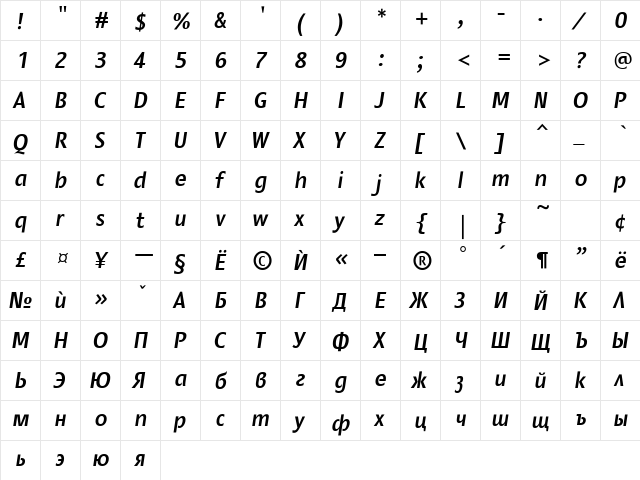
Montana Bold Italic
Design Context for Montana Typeface
Montana is a composed and adaptable typeface that performs quietly and consistently across a wide range of design contexts. The dynamic lean of this cut emphasises speed and emphasis in any layout. Its bold stroke weight gives it real presence on the page.
Pro Tip: Try Montana for annotation and caption copy alongside an upright companion — the contrast in angle creates a dynamic but ordered typographic system.